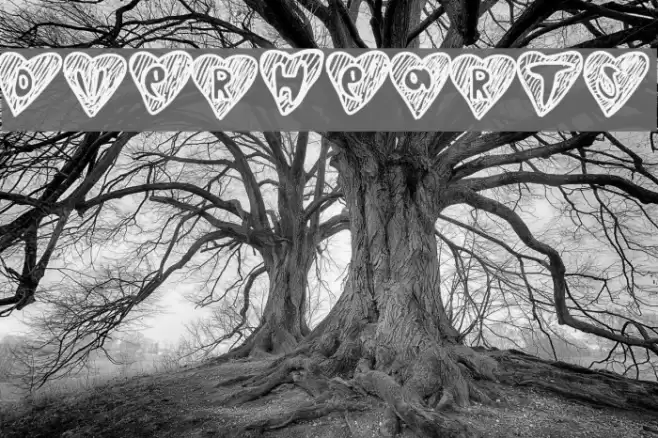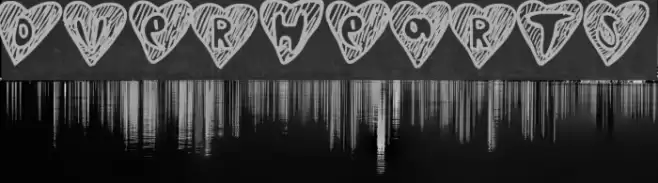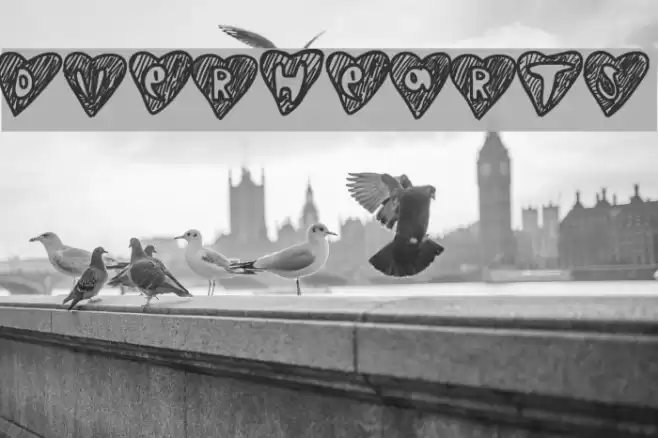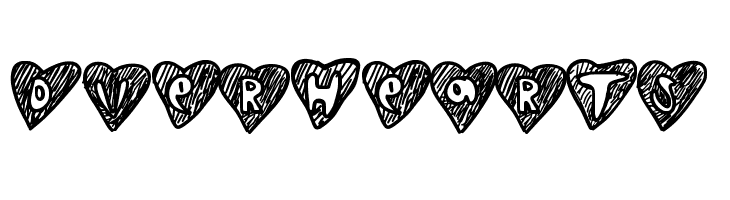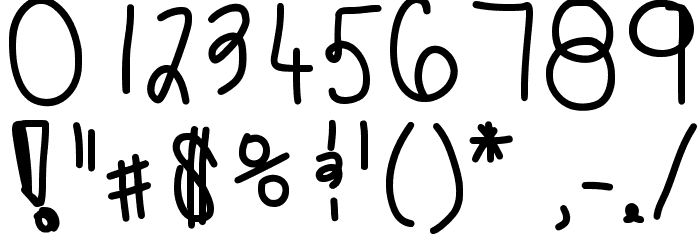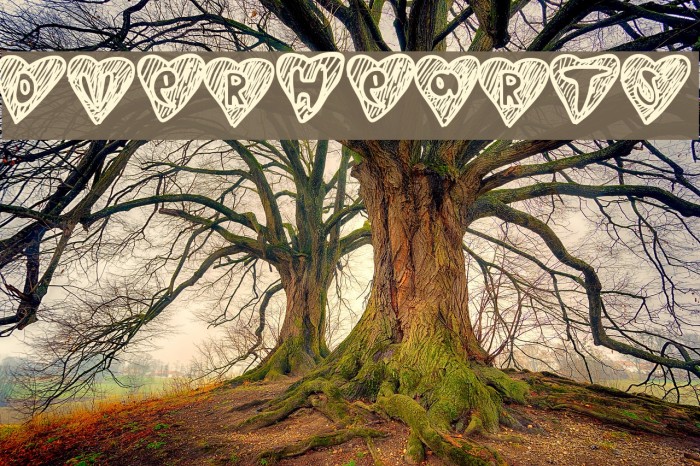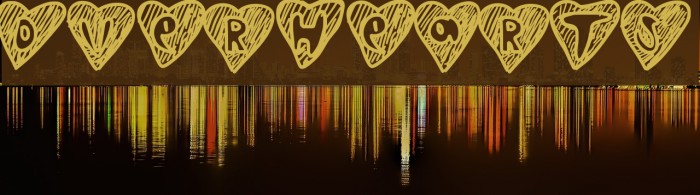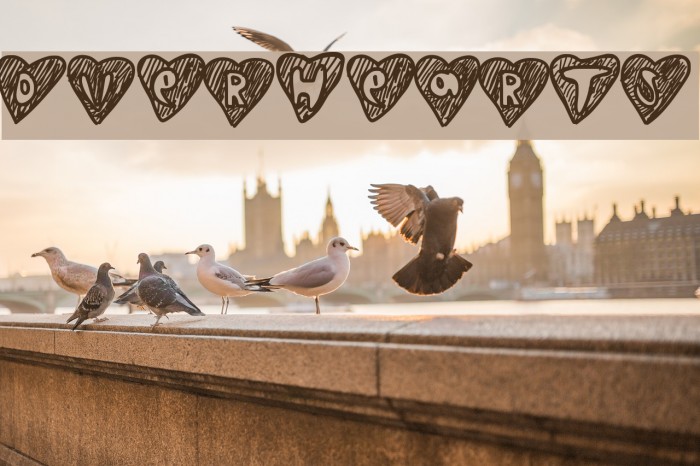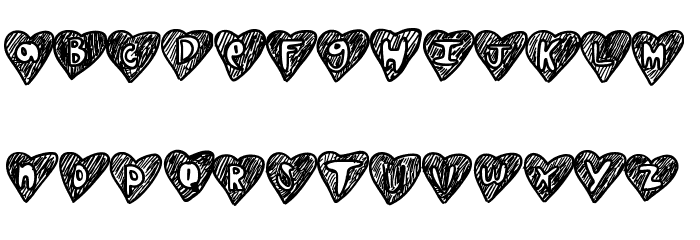
Overhearts Font
Overhearts Description
This playful and decorative font features each letter encased within a heart shape, creating a whimsical and romantic aesthetic. The uppercase and lowercase letters are consistent in style, with a hand-drawn, sketch-like quality that adds a personal touch. The numbers and special characters maintain a similar playful style, with bold strokes and a slightly uneven, organic feel. This font is ideal for projects that require a fun and lighthearted vibe, such as greeting cards, children's books, or playful branding.
A whimsical, heart-encased decorative font with a hand-drawn style from Uncategorized fonts.
- Proposed Projects: Perfect for greeting cards, playful branding, children's books, and romantic-themed designs.
- Use Case: Headlines, Logos, Decorative text